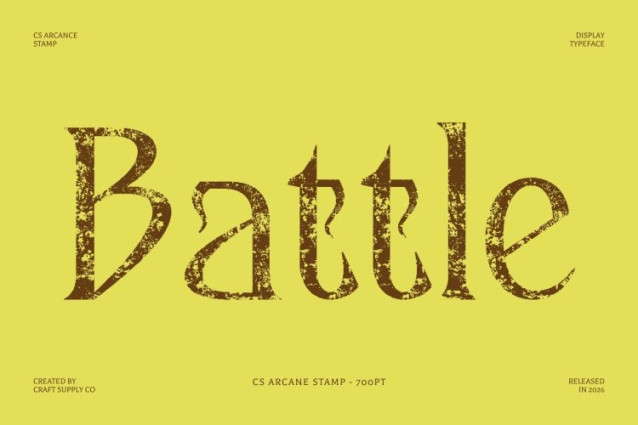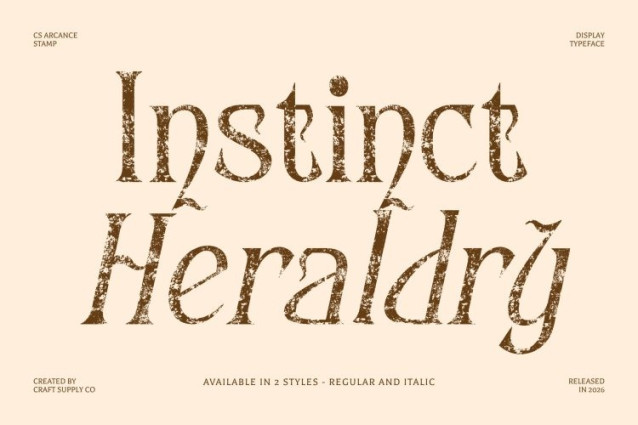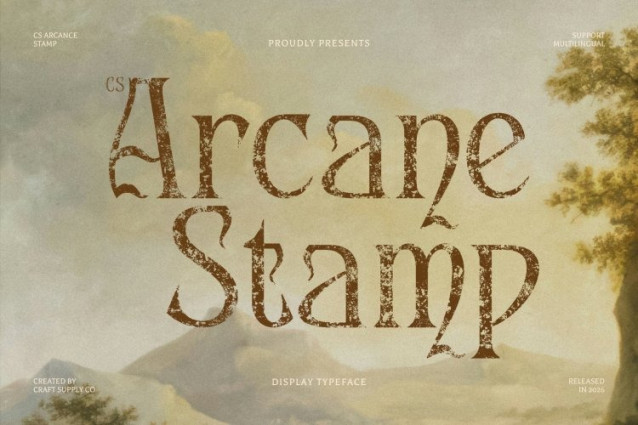
CS Arcane Stamp Font
CS Arcane Stamp Font This is a decorative display serif font distinguished by its signature wavy stroke endings, now enriched with a stamped, slightly distressed texture. The curved and undulating serif tips create a sense of movement and whimsy, while the stamp effect introduces a tactile, handcrafted feel that adds vintage personality and artistic depth.
Cheerful Expression Meets Retro Authenticity
The flowing, wavy strokes convey joy, creativity, and imagination, while the stamped texture adds warmth and character reminiscent of old print techniques. This balance makes feel lively yet grounded perfect for designs that want to appear expressive, artistic, and slightly nostalgic. Its decorative details elevate compositions with charm, emotion, and individuality.
Strong Impact for Headlines and Creative Displays
Designed to shine in headlines, titles, and statement typography, delivers bold visual impact with a unique artistic voice. It is ideal for posters, book covers, packaging, branding, and promotional materials that require a distinctive and memorable look. The combination of playful forms and vintage stamp texture ensures every design feels creative, engaging, and full of character.
Perfect for Unique and Imaginative Projects
The perfect choice for designers seeking a decorative serif font that blends cheerful expression with old-style authenticity. Its artistic flair and textured finish make it a standout option for projects that aim to feel creative, handcrafted, and visually unforgettable.